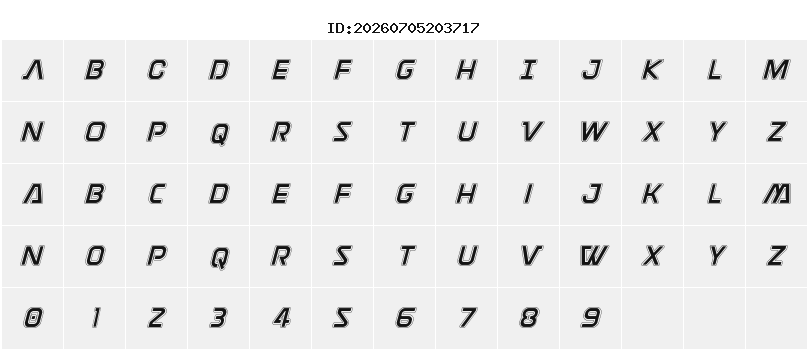
Discotechia Academy Preview
• Font Name: Discotechia Academy
• Full Font Name: Discotechia Academy
About Discotechia Academy.ttf
Discotechia Academy.ttf is a modern, elegant sans-serif font designed for ultimate readability and visual harmony. Perfect for branding, headlines, web design, and print materials.